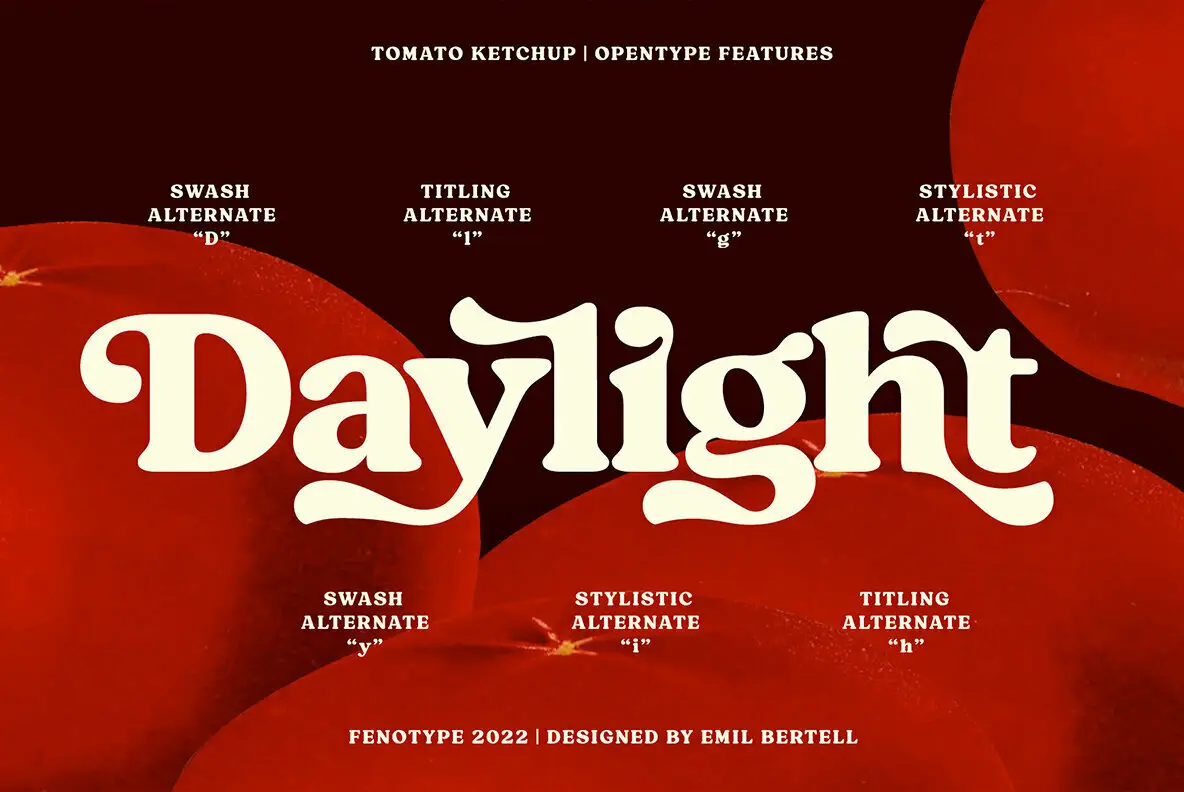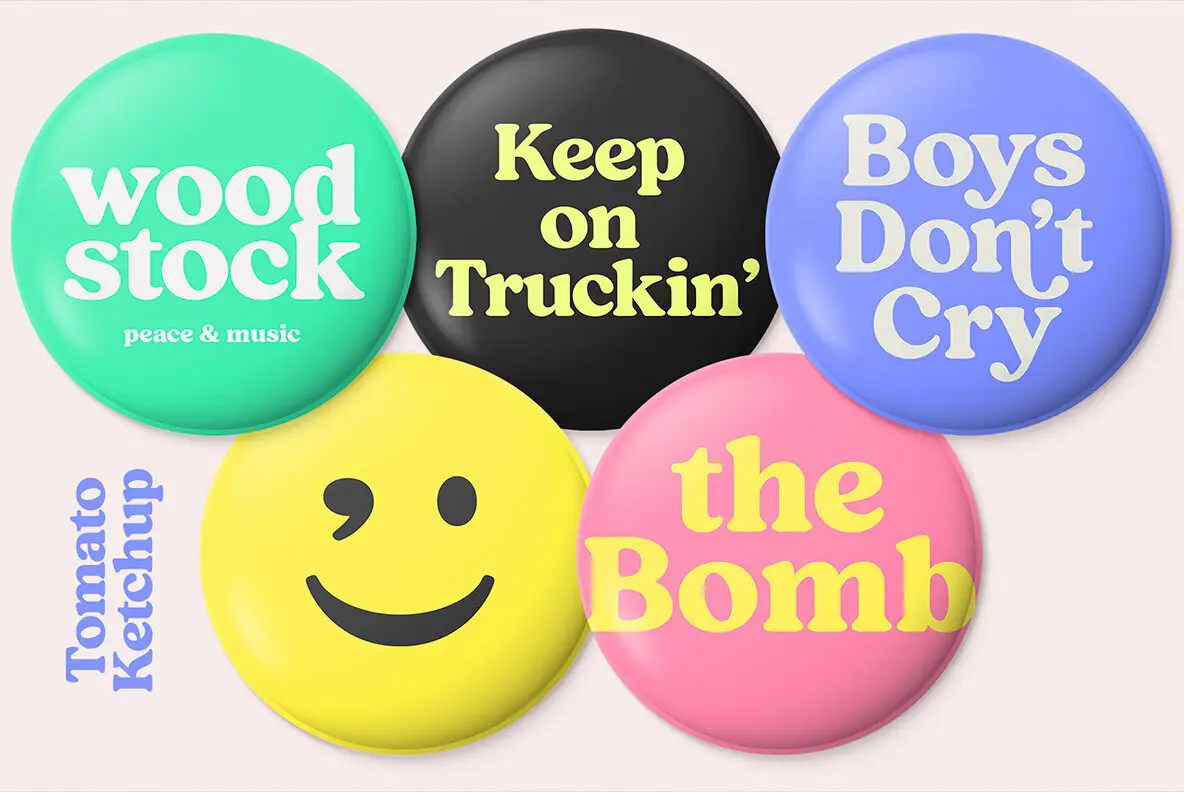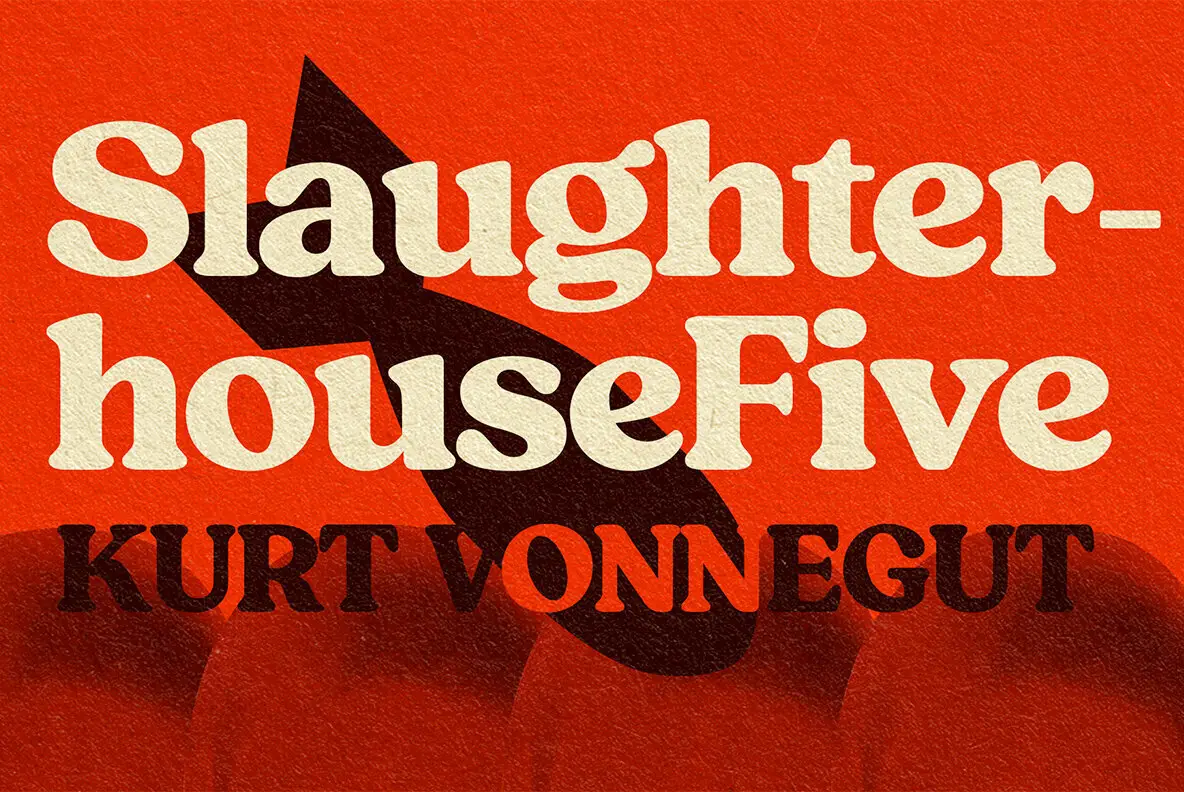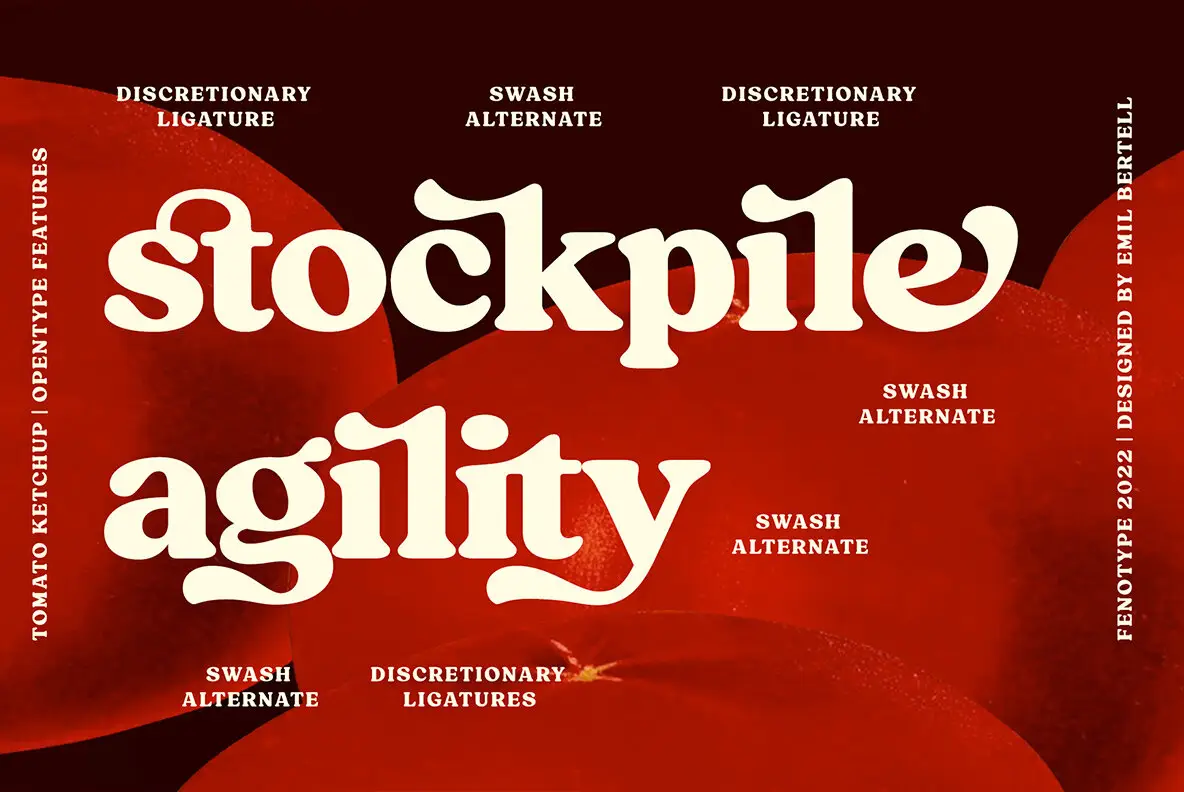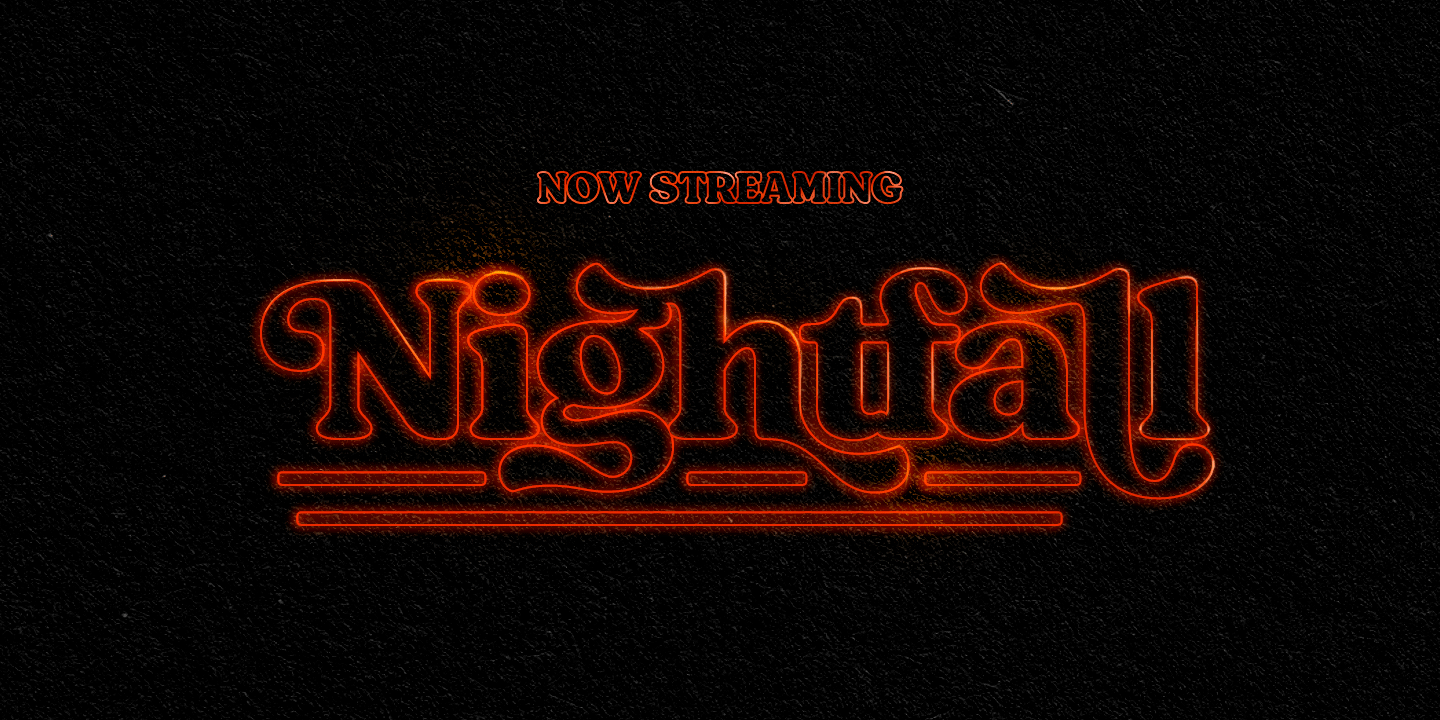
Tomato Ketchup Font . Tomato ketchup is a tasty vintage style serif font with a nonchalant charm and sturdy confidence. Tomato ketchup is a bold vintage style serif font with a nonchalant charm and sturdy confidence in. Tomato ketchup is a bold vintage style serif font with a nonchalant charm and sturdy confidence. Tomato ketchup is a bold vintage style serif font with a nonchalant charm and sturdy confidence. Tomato ketchup has a recognizable flavor and. Tomato ketchup has a recognizable flavour and a reminiscence of familiar warm. Tomato ketchup has a wide range of weights and styles to choose from, available in otf and ttf format, it is very easy to incorporate this font. This is a bold serif typeface created by fenotype with a modern and retro style. Tomato ketchup is a bold vintage style serif font with a nonchalant charm and sturdy confidence. Tomato ketchup has a recognizable flavour and a reminiscence of familiar warm. Tomato ketchup has a recognizable flavour and. Tomato ketchup is a bold vintage style serif font with a nonchalant charm and sturdy confidence.
Tomato ketchup is a tasty vintage style serif font with a nonchalant charm and sturdy confidence. Tomato ketchup is a bold vintage style serif font with a nonchalant charm and sturdy confidence. Tomato ketchup has a recognizable flavour and. Tomato ketchup is a bold vintage style serif font with a nonchalant charm and sturdy confidence. Tomato ketchup has a recognizable flavour and a reminiscence of familiar warm. Tomato ketchup is a bold vintage style serif font with a nonchalant charm and sturdy confidence. Tomato ketchup has a wide range of weights and styles to choose from, available in otf and ttf format, it is very easy to incorporate this font. Tomato ketchup is a bold vintage style serif font with a nonchalant charm and sturdy confidence. Tomato ketchup has a recognizable flavor and. This is a bold serif typeface created by fenotype with a modern and retro style.
Tomato Ketchup Font This is a bold serif typeface created by fenotype with a modern and retro style. Tomato ketchup is a bold vintage style serif font with a nonchalant charm and sturdy confidence. Tomato ketchup has a wide range of weights and styles to choose from, available in otf and ttf format, it is very easy to incorporate this font. Tomato ketchup is a tasty vintage style serif font with a nonchalant charm and sturdy confidence. Tomato ketchup is a bold vintage style serif font with a nonchalant charm and sturdy confidence. Tomato ketchup has a recognizable flavour and a reminiscence of familiar warm. Tomato ketchup has a recognizable flavour and. Tomato ketchup is a bold vintage style serif font with a nonchalant charm and sturdy confidence. This is a bold serif typeface created by fenotype with a modern and retro style. Tomato ketchup is a bold vintage style serif font with a nonchalant charm and sturdy confidence in. Tomato ketchup has a recognizable flavour and a reminiscence of familiar warm. Tomato ketchup has a recognizable flavor and. Tomato ketchup is a bold vintage style serif font with a nonchalant charm and sturdy confidence.